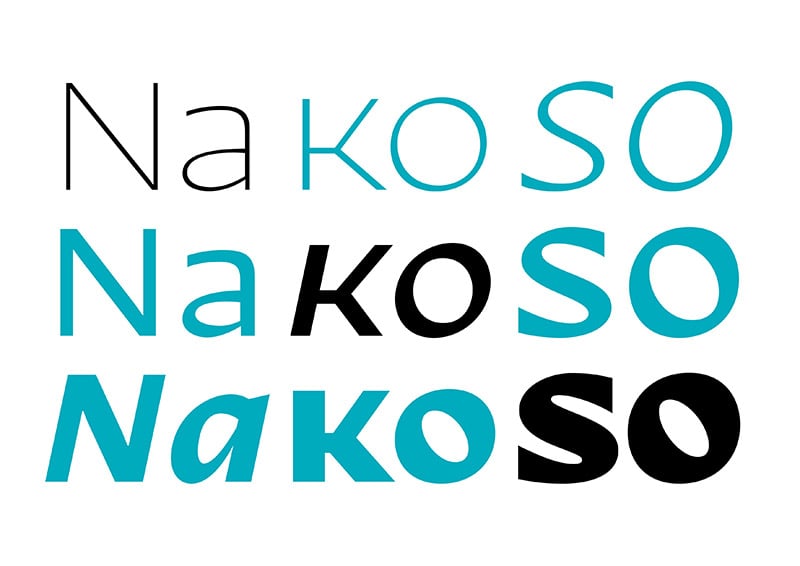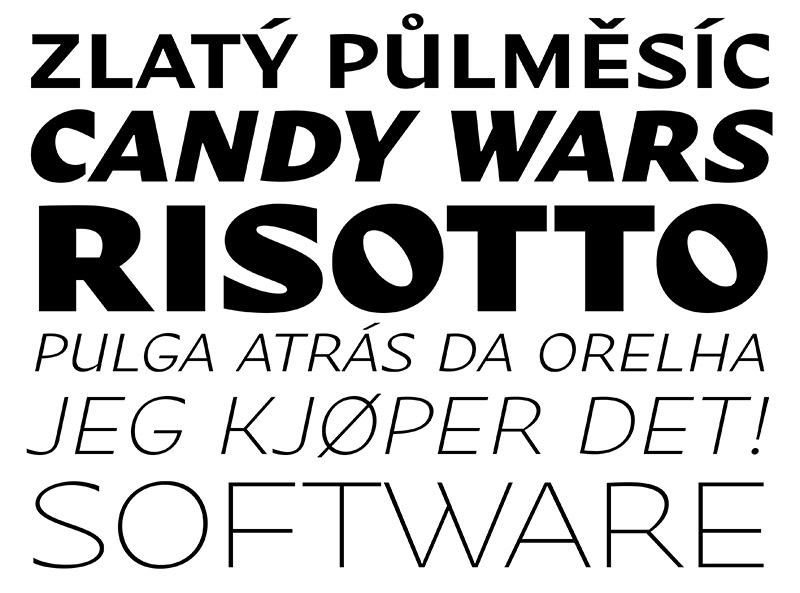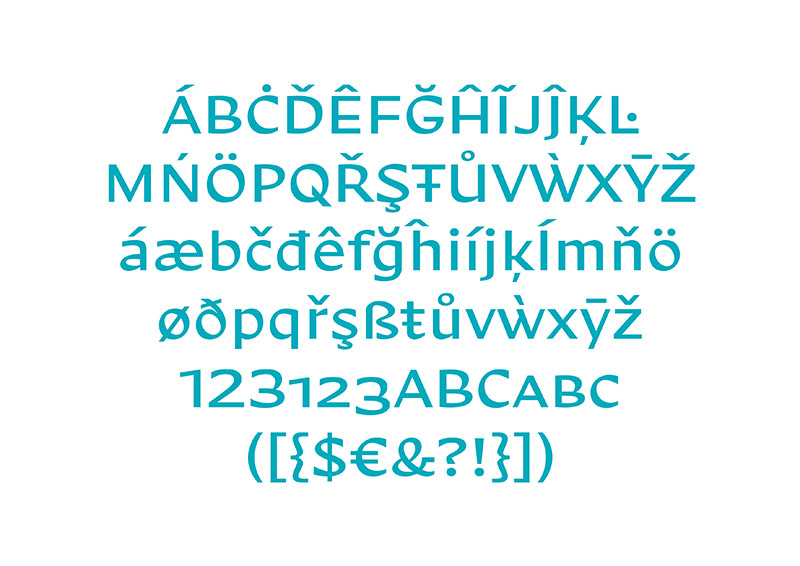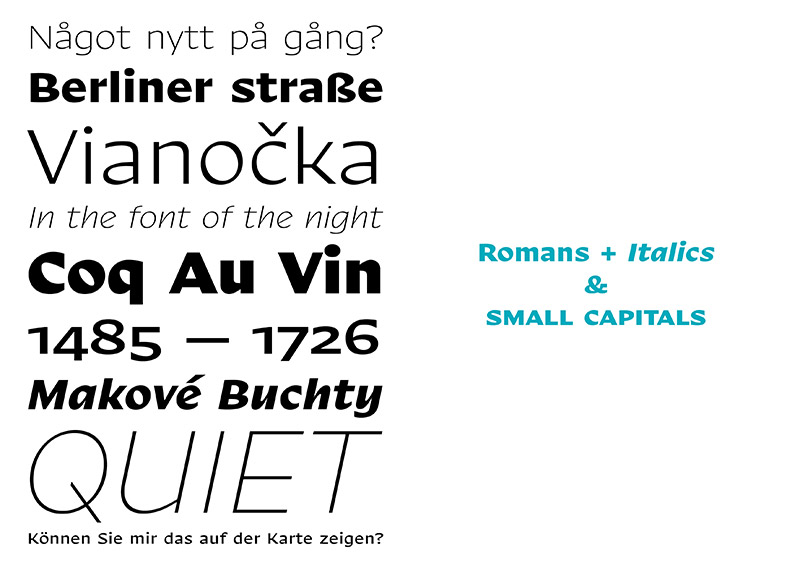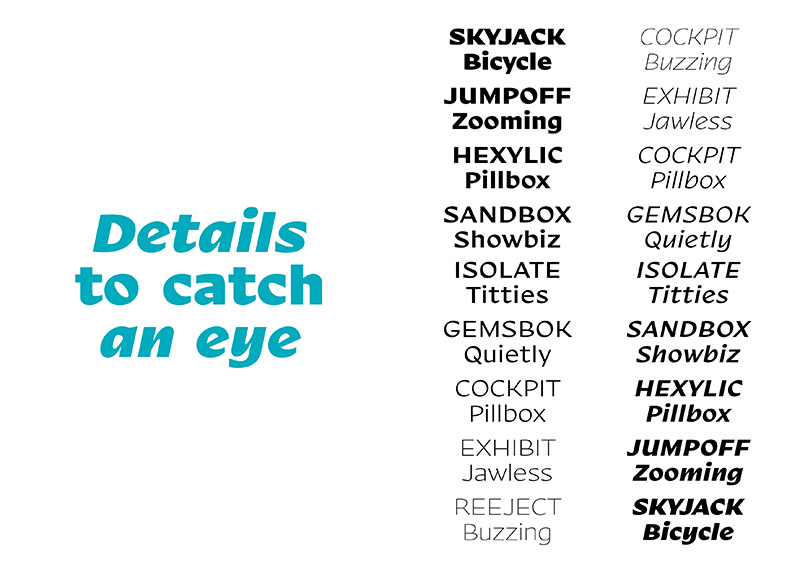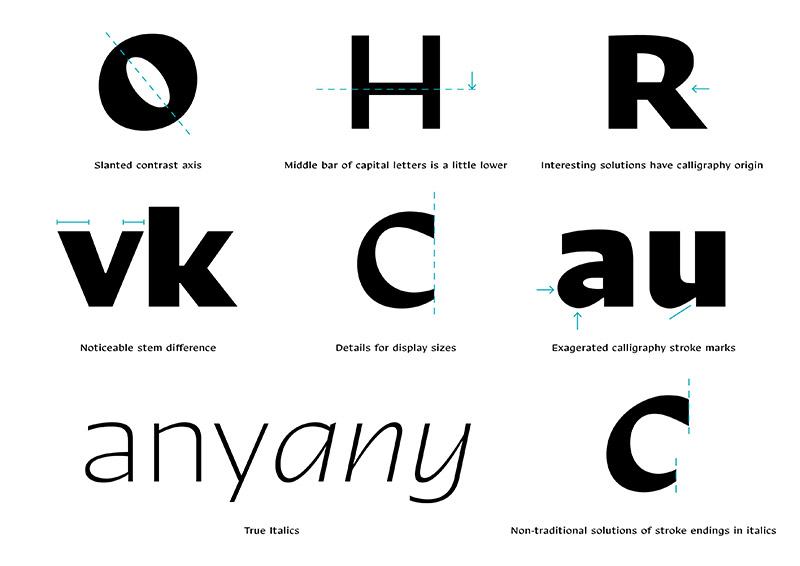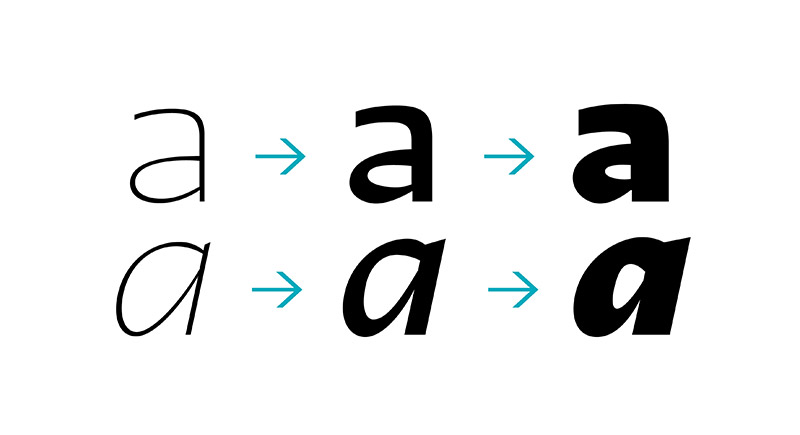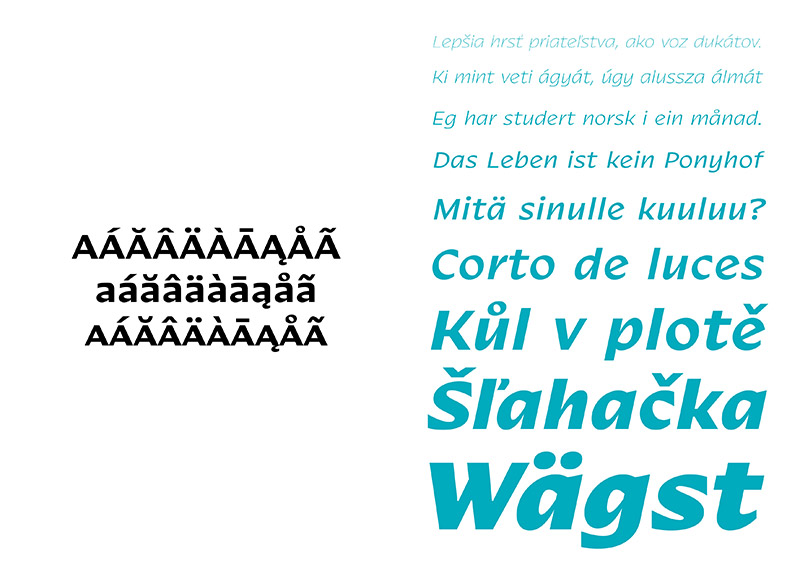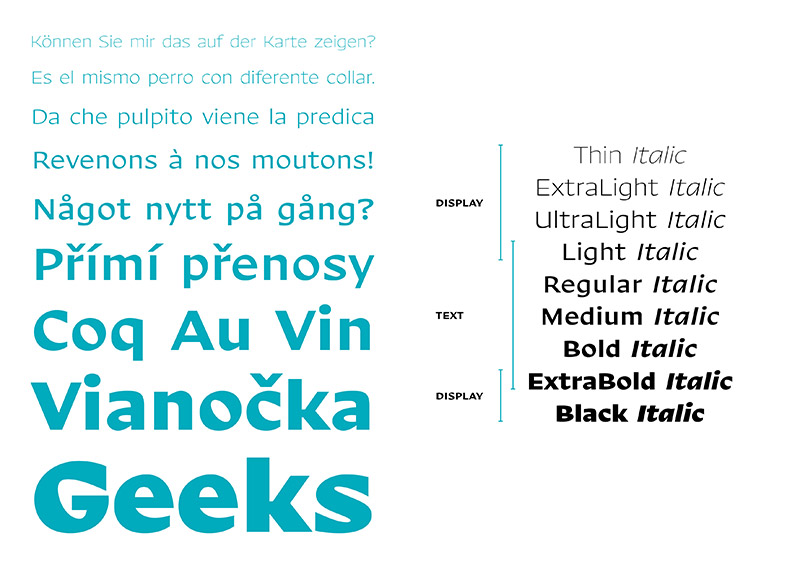
Typeface of the Month: Nakoso
Nakoso von DizajnDesign ist unsere Typeface of the Month für den Monat Mai. Nakoso bedeutet Slanted auf Slowakisch und natürlich auch deshalb ist diese Schrift momentan sehr beliebt bei uns. Der Name drückt sich visuell durch den schrägen Neigungswinkel aus. Dadurch bekommt die Sans Serife ein frisch-freudiges Aussehen, das gleichermaßen Text- und auch Displayansprüchen gerecht wird. Verfügbar ist sie in neun Schnitten von Thin bis Black plus Italics und in einem zusätzlichen Caps Bold Schnitt. Dieser ist momentan als Free Font erhältlich. Also seid schlau und werft einen Blick auf die verspielte Nakoso.
Nakoso is a fresh and playful sans-serif typeface based on broad-nib pen calligraphy and inspired by sign painting. Its contrast angle is visibly slanted, and influenced the choice of name (“nakoso” in slovak = slanted).
Nakoso can be described as both a text and a display typeface. It consists of nine weights and each one of them is meant to be used on text or display. Light and Dark weights are supposed to be used for large inscriptions and headlines. “Neutral” weights (from Regular to Bold) are designed for small sizes.
The drawing of three font masters (Thin, Regular, Black) made room for an individual approach to spacing (letter space). Display variants therefore have a tighter letter space (+ kerning), and the spacing of text variables is more adequate for small sizes. The usability of the typeface family is enhanced by the presence of true cursives, small capitals, old style numbers and other useful glyph sets.
From the aesthetic point of view, the typeface’s most interesting feature is the use of a visibly slanted contrast axis, as influenced by broad nib calligraphy. This type of calligraphy is often easy to identify because of its visible pen angle. Stroke marks after broad nib pen were visibly emphasized. Another source of inspiration was American sign painting, which influenced capital letters construction, by placing the middle bars a little bit lower than usual.
The strength of Nakoso relies in its universality, both for running text and headlines. It is suited for magazines, visual identity programs, advertising text and small print. Calligraphy and sign painting features bring playfulness into the digital type. Nakoso departs from tradition and celebrates the most recent design trends of the 21st century.
Nakoso
Foundry: DizajnDesign
Designer: Ján Filípek
Weights: Thin, ExtraLight, UltraLight, Light, Regular, Medium, Bold, ExtraBold, Black each with Italics, Nakoso Caps Bold